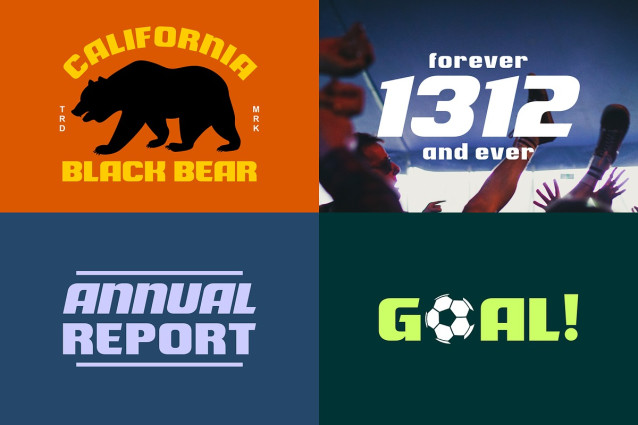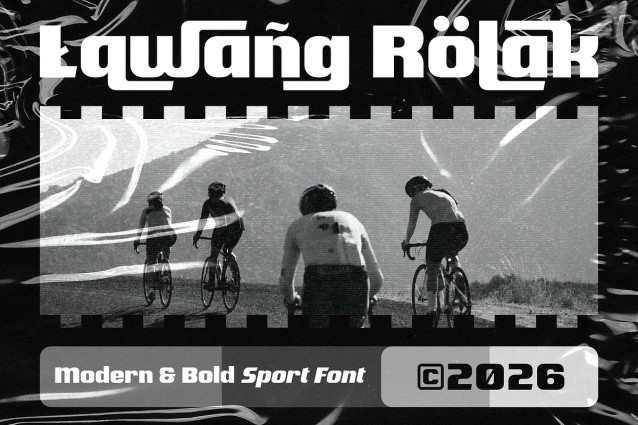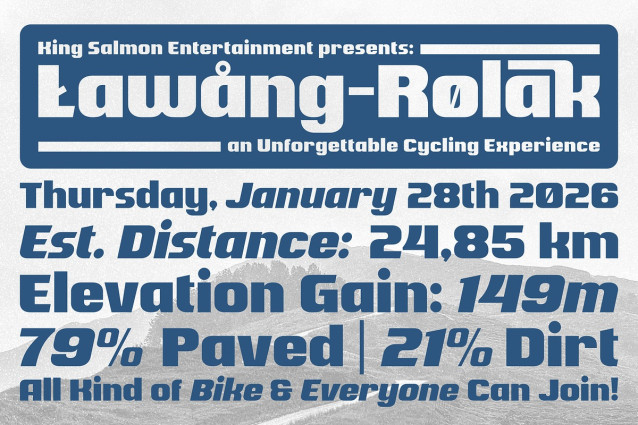
Lawang Rolak Font
Lawang Rolak Font is our new sport font release. Mouse-crafted with bold and clean characteristics and agressive personality, this font will give you an instant fast and dynamic feel to your designs. This font is packed with standard uppercase, lowercase, numerals, punctuations, some multilingual and alternate/swash characters that guaranteed will elevate your designing game. PS: Also available in slanted version/faux-italics too, so you can play more with the letter combinations.